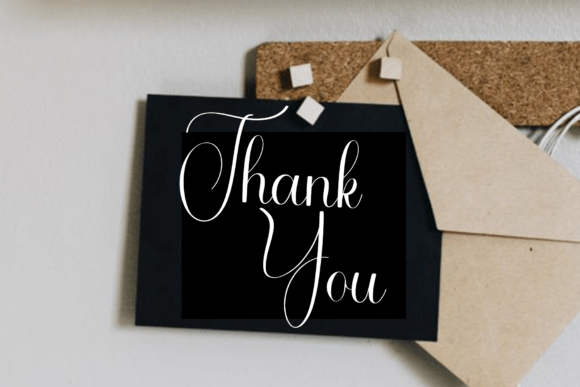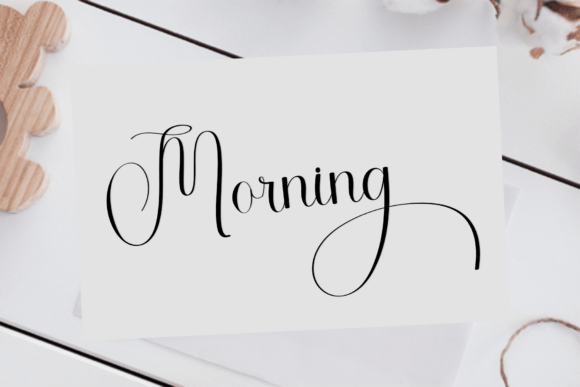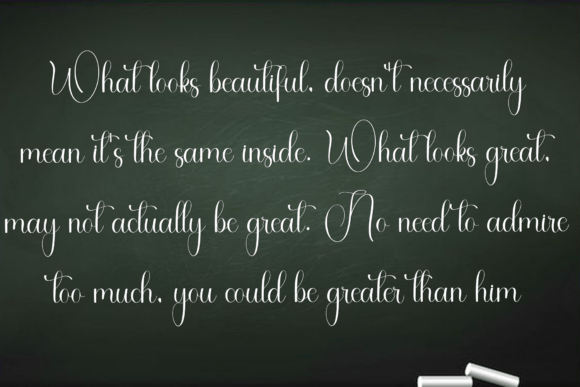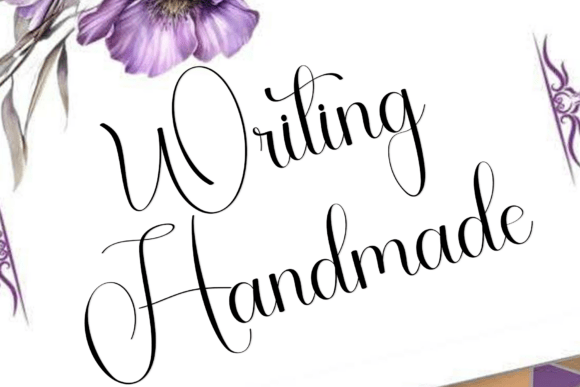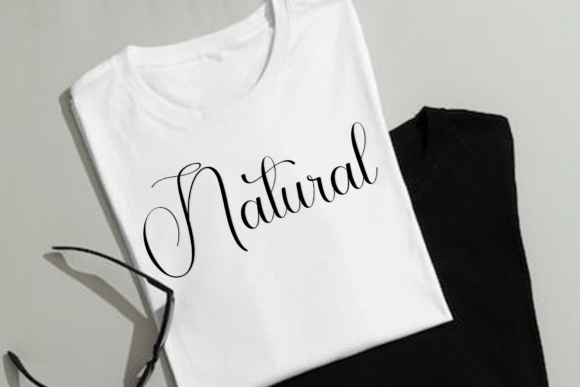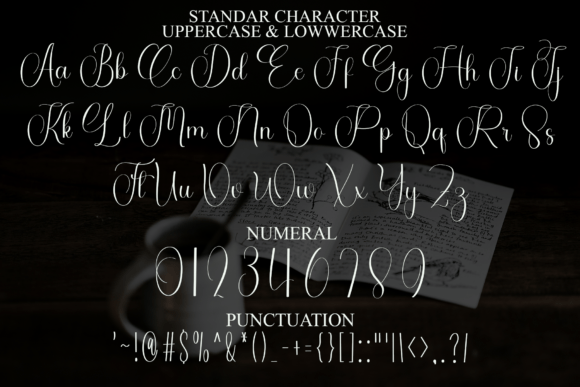
Have you ever sat in front of your computer, staring blankly at a blank page, trying to come up with the perfect font to match your design vision? You know, that elusive ‘aha’ moment when everything clicks into place?
Enter the Alignment Font, a charming and playful typeface that’s sure to bring a smile to your face. This delightful font is designed to add a touch of warmth and friendliness to any project, making it perfect for personal projects, invitations, and social media graphics. With its round, hand-drawn strokes, the Alignment Font is a designer’s dream come true – adding a unique and fun twist to any design.
Whether you’re a seasoned pro or just starting out, the Alignment Font is a valuable addition to your design toolkit. Its versatility and charm make it a must-have for any project, and its compatibility with a range of application engines makes it a breeze to use.
Alignment Font Key Features
- Font Family: The Alignment Font family is designed to provide clear and readable text, with multiple weights and styles available for use in various applications.
- Unique Characteristic: The Alignment Font family features a unique, modern design that is optimized for digital use, with carefully crafted letterforms and spacing to ensure clear readability on screens and in print.
- Language Support: The font family supports a wide range of languages, including Latin, Cyrillic, and Greek scripts, making it suitable for use in multilingual applications and publications.
Designer Review: Alignment Font
Alignment Font is a typeface that promises to provide a harmonious balance between legibility and aesthetics. In my opinion, here are some aspects that work well:
- ✨ Unique character: The font’s quirky personality is a great conversation starter, making it suitable for projects that require a bit of whimsy.
- ✨ Readability: Despite its unusual shape, Alignment Font is surprisingly easy to read, especially in smaller font sizes.
- ✨ Versatility: The font comes in multiple weights, making it easy to mix and match for different design applications.
- ⚠️ Limited range: While the font is suitable for various design projects, it might not be the best choice for projects that require a more traditional or formal look.
Overall, Alignment Font is a fun and creative typeface that can add a unique touch to your designs. However, it’s essential to consider its limitations and ensure it aligns with your project’s requirements.
Use alignment font to create visually appealing text arrangements. Experiment with different font sizes and styles to create a unique look. Use alignment font to create a sense of hierarchy in your design by using different font sizes and styles to draw attention to important information.
Alignment font is commonly used in graphic design, digital marketing, and publishing. It can be used to create eye-catching headings, titles, and captions. Alignment font can also be used to create a sense of unity and cohesion in a design by using a consistent font style throughout.